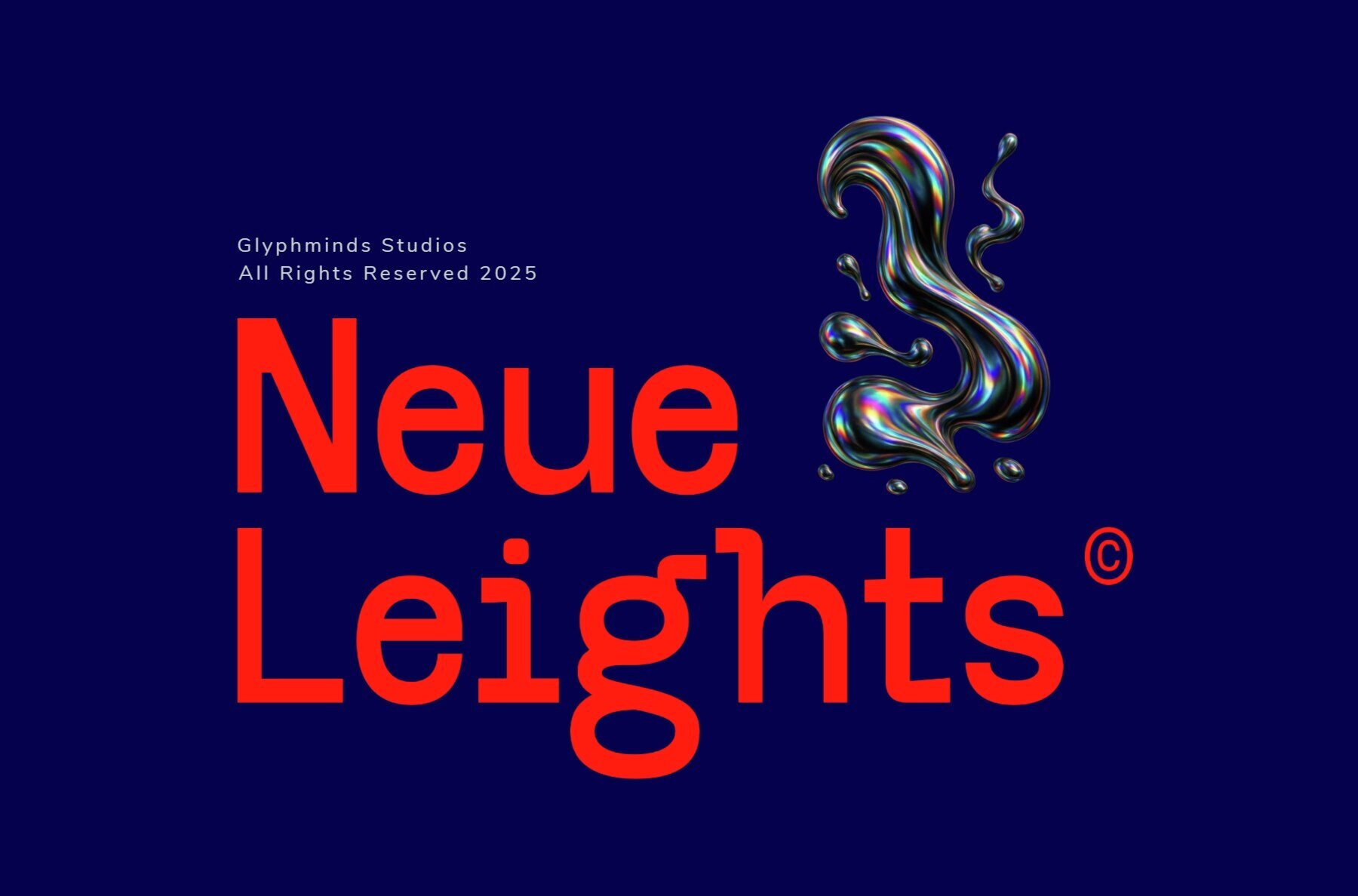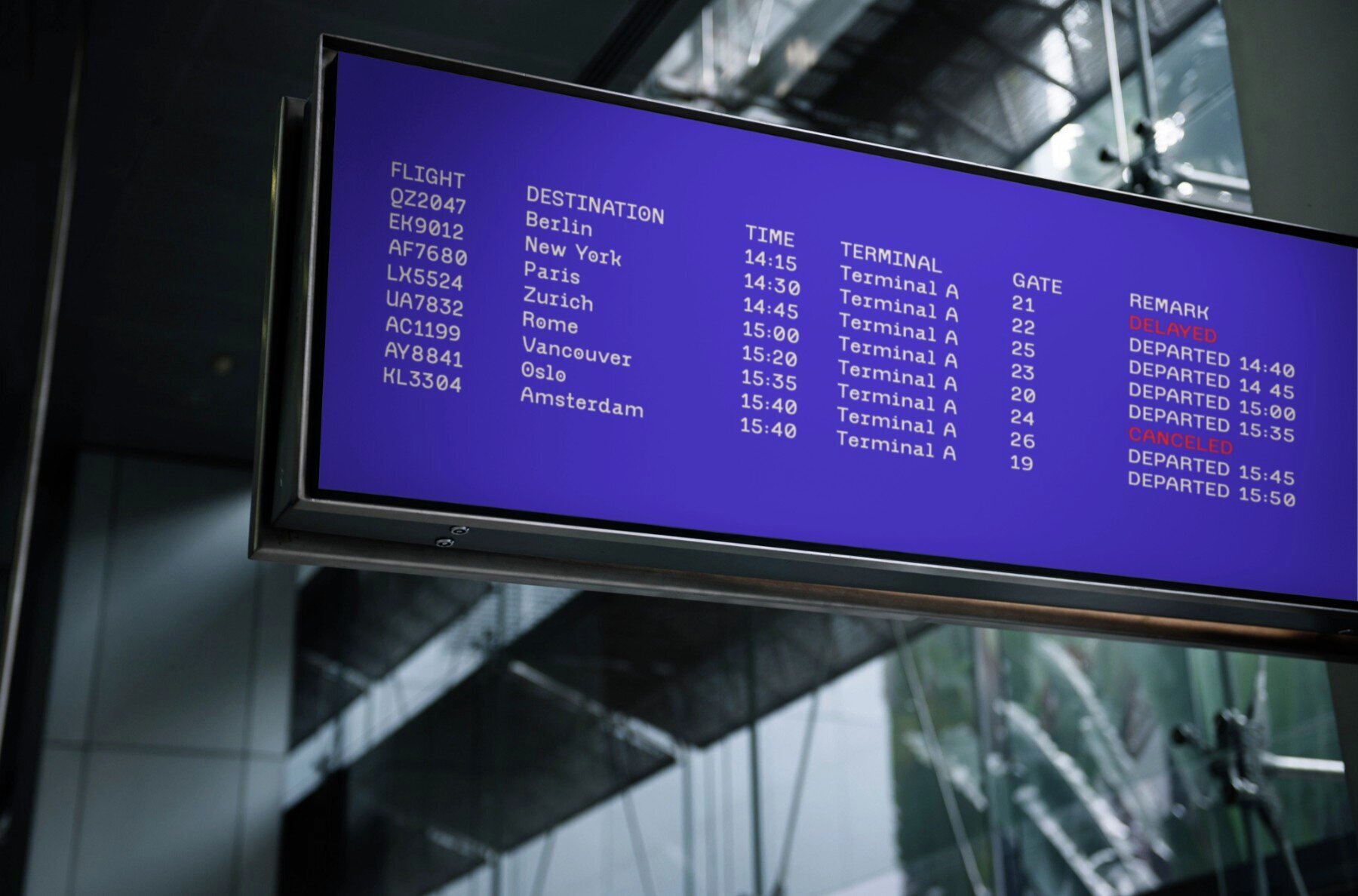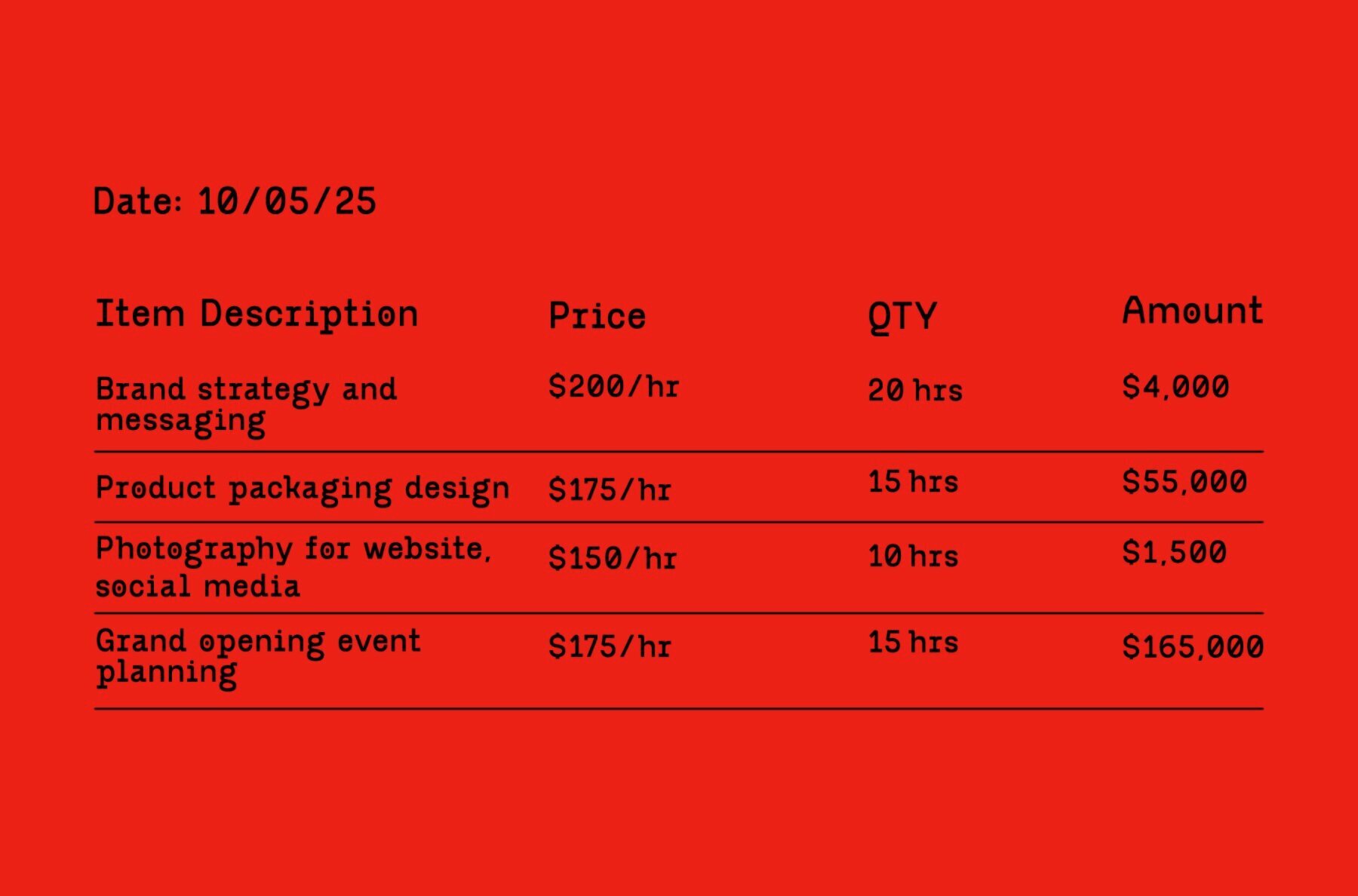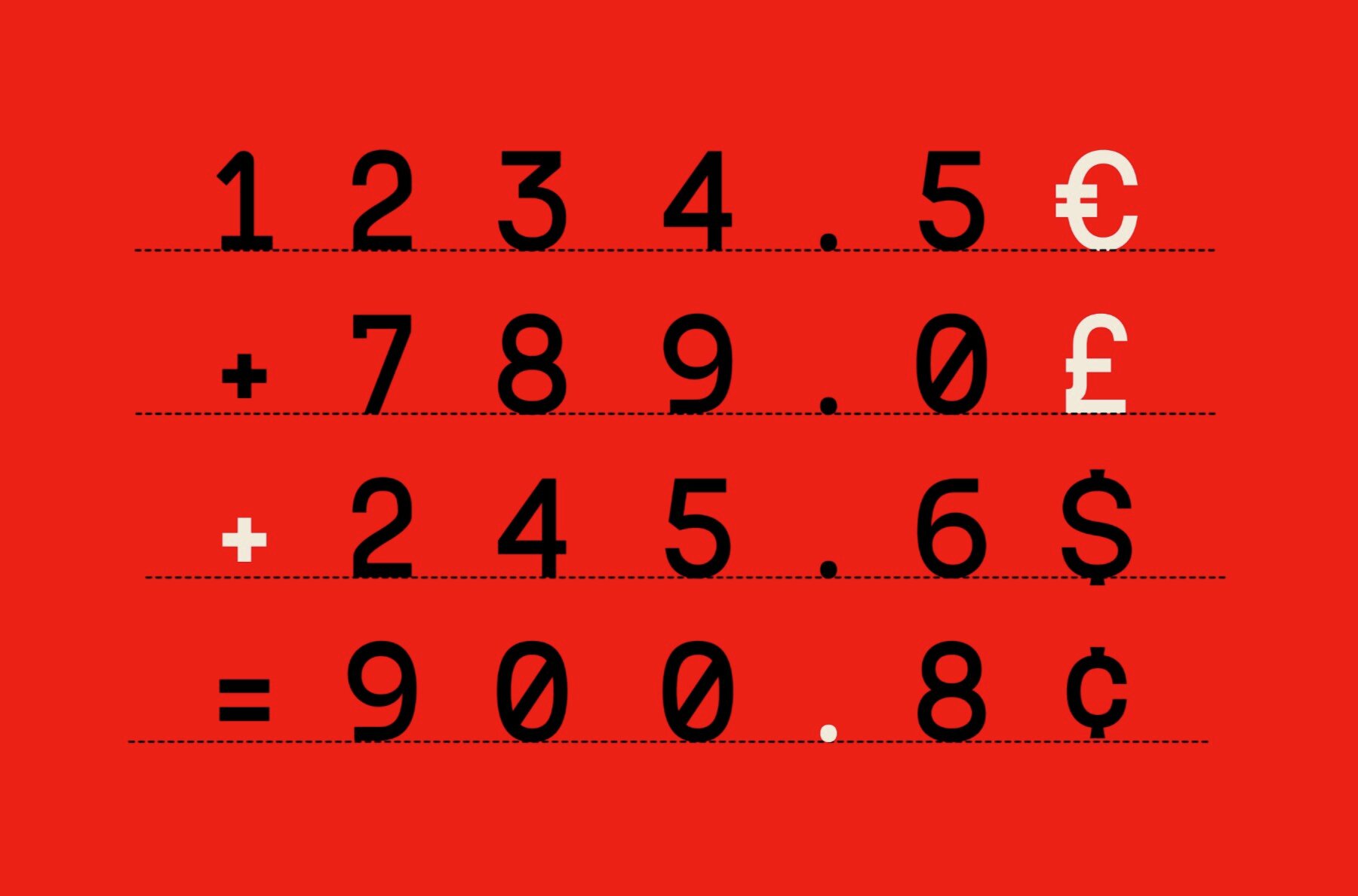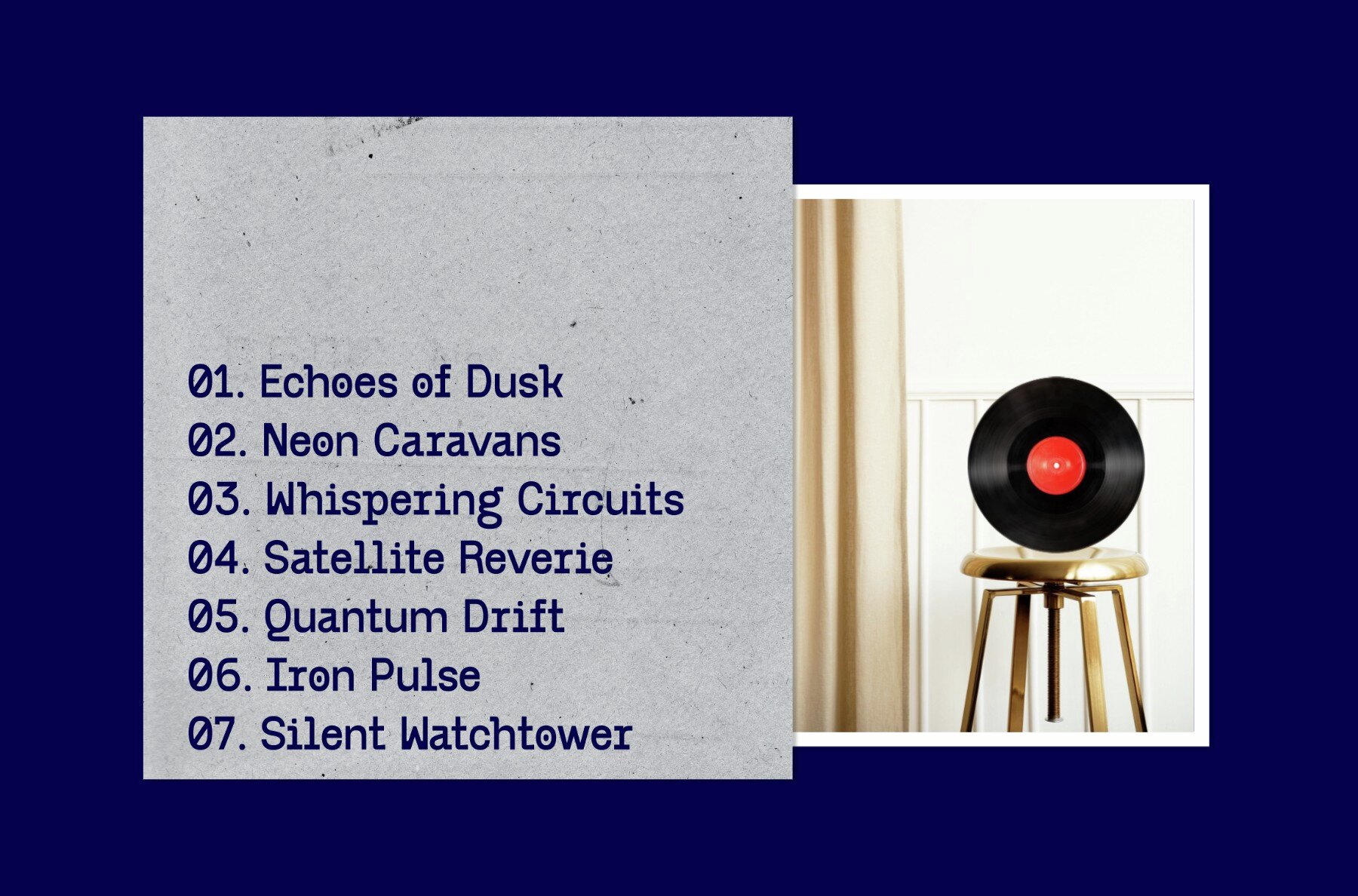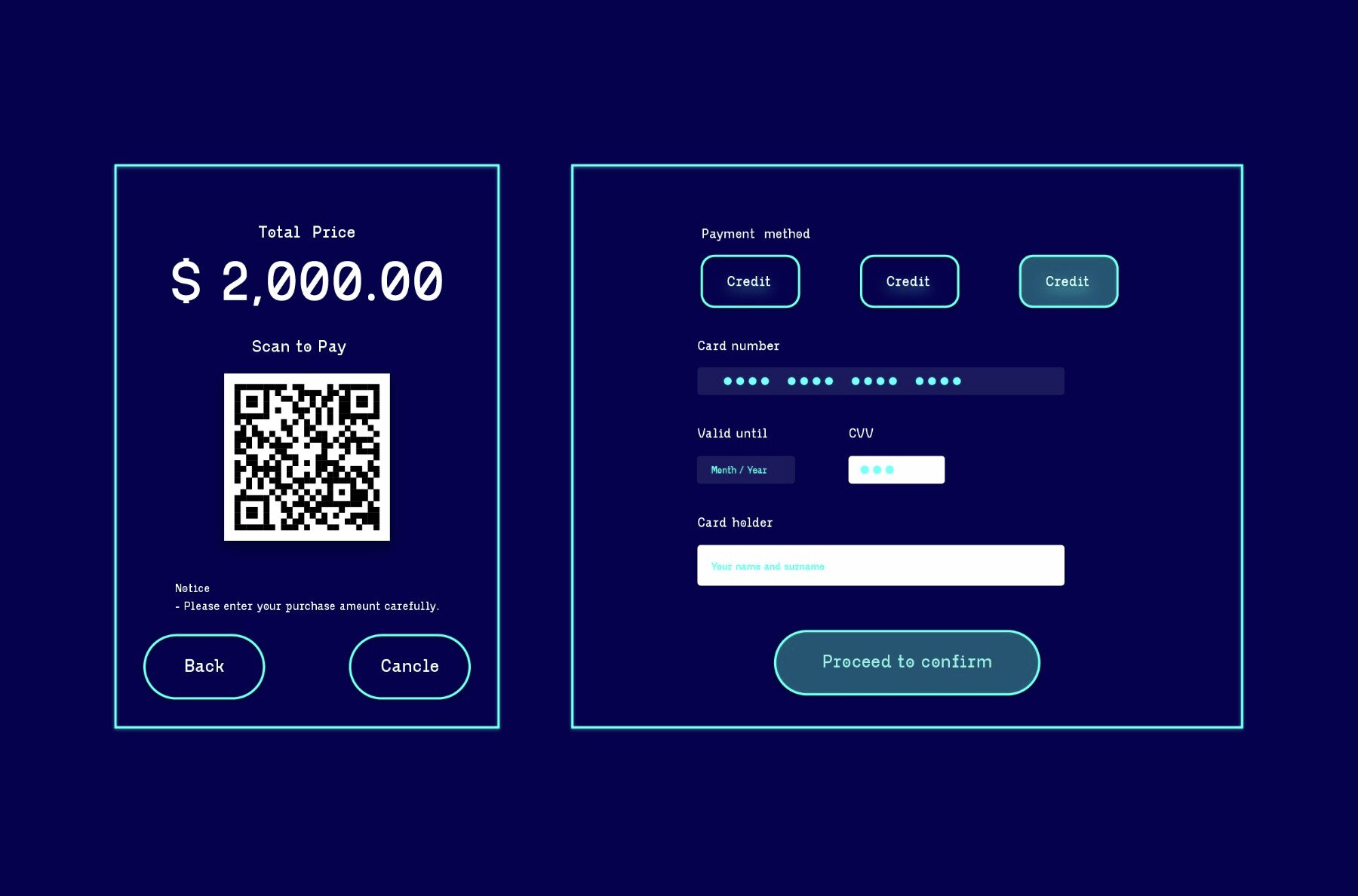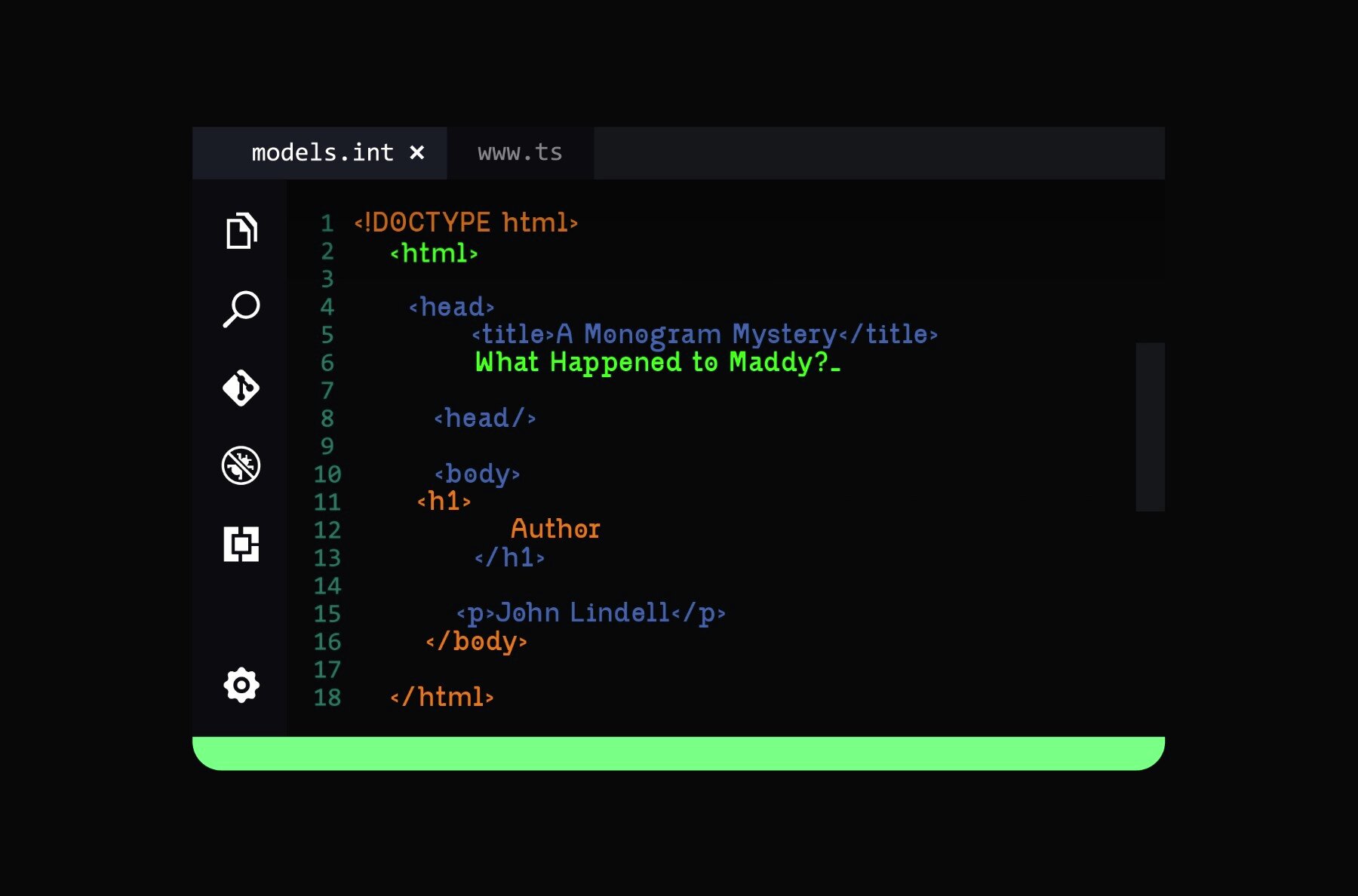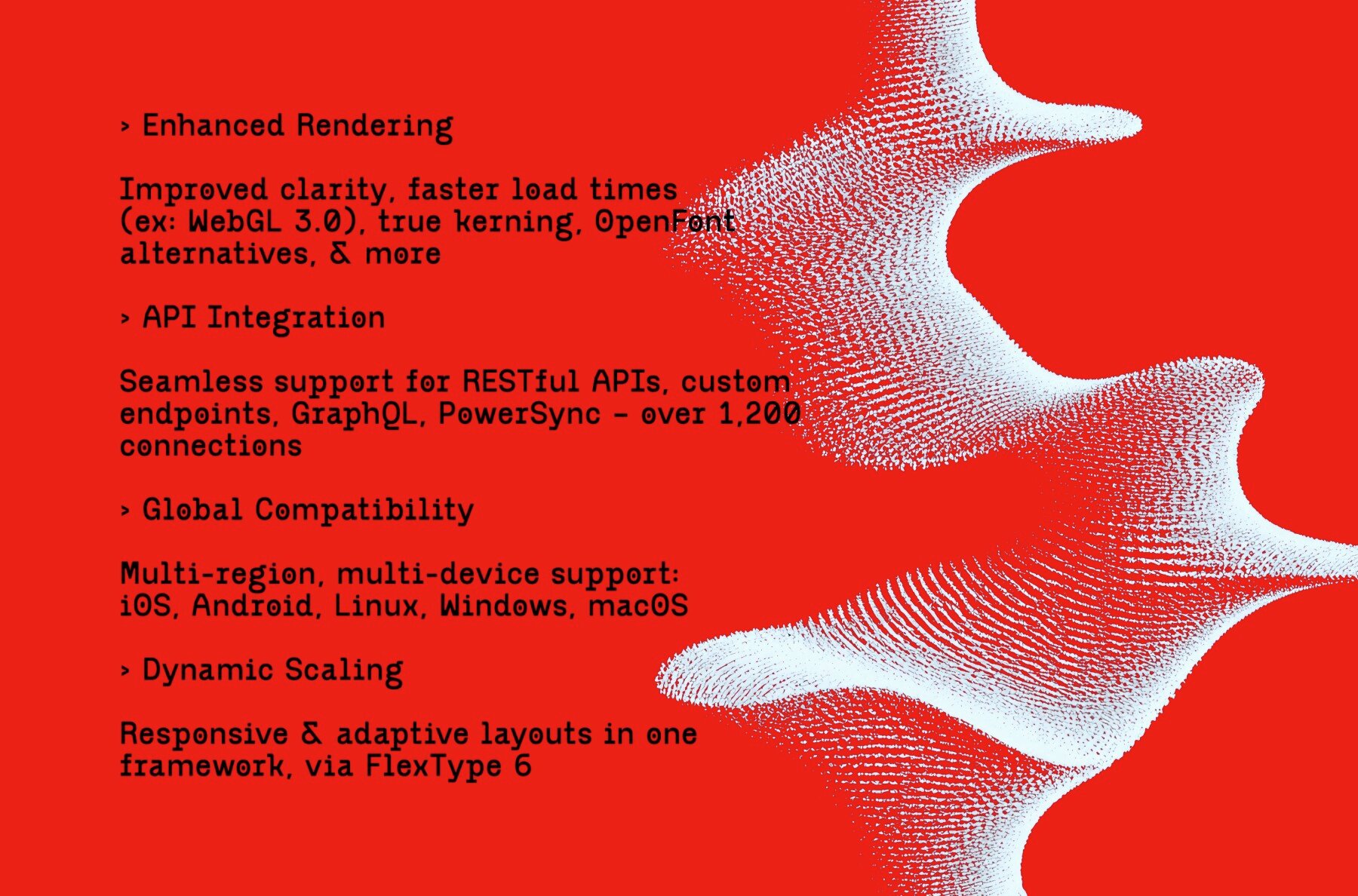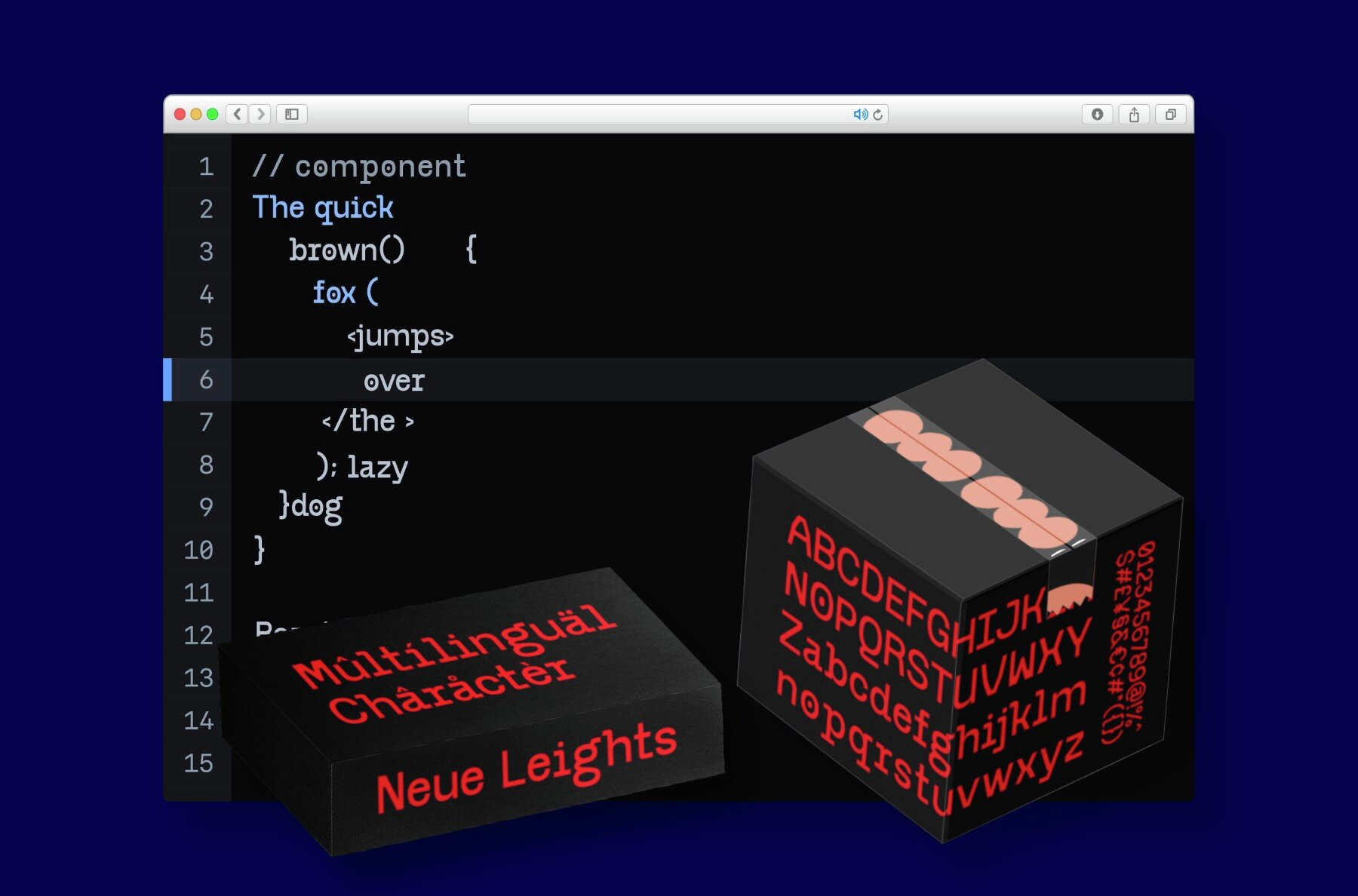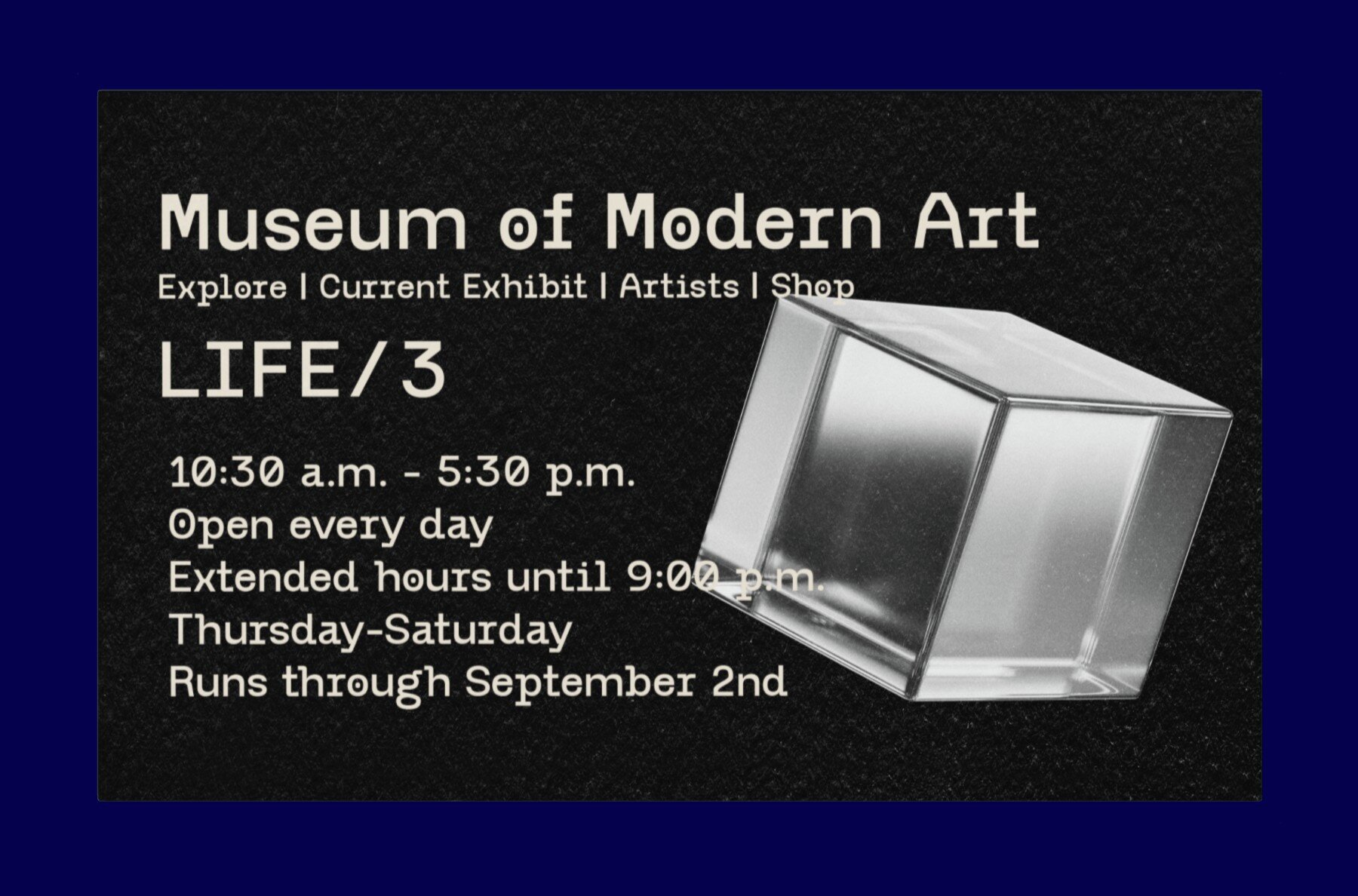
Neue Leights Font
Neue Leights Regular
The Neue Leights font captivates with its monospaced grotesque sans-serif design, seamlessly combining contemporary elegance and fluidity. Ideal for bold headlines, logos, and digital projects, its unique style brings a distinctive edge to any creative endeavor.Neue Leights: Modern Monospaced Grotesque Sans-Serif